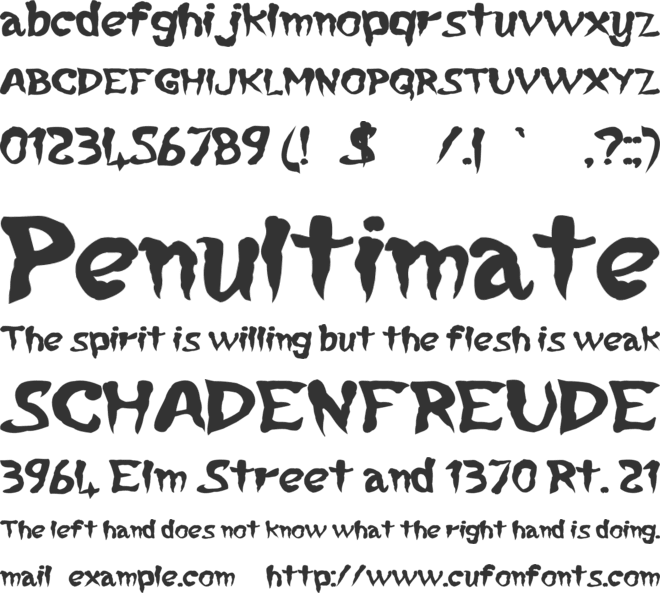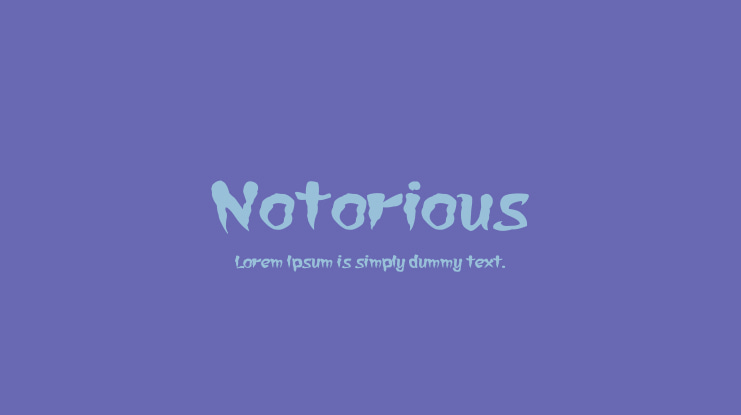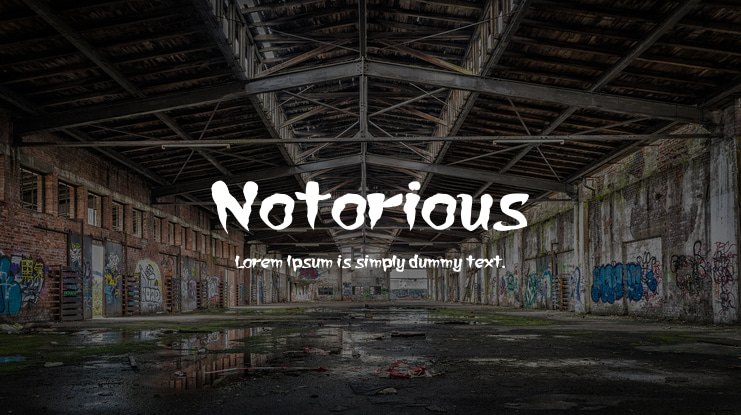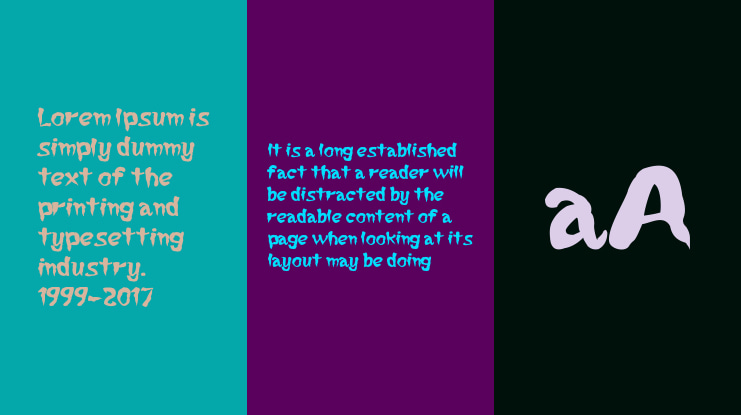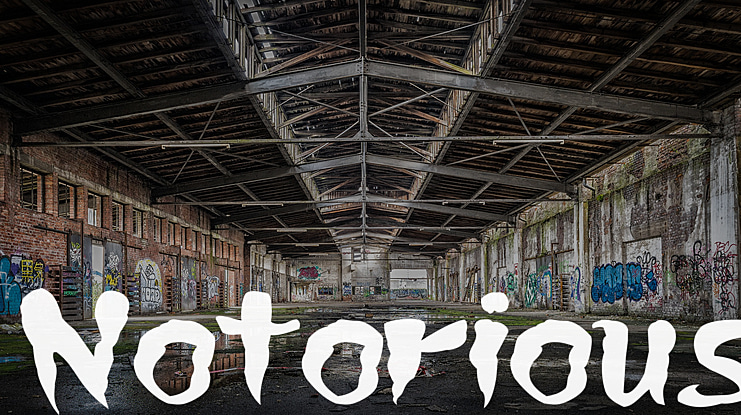
Notorious Font
P. A. Vannucci
NOTORIOUS font: directly from the Best movie by Alfred Hitchcock, with INGRID BERGMAN and CARY GRANT, the original font for all lovers.